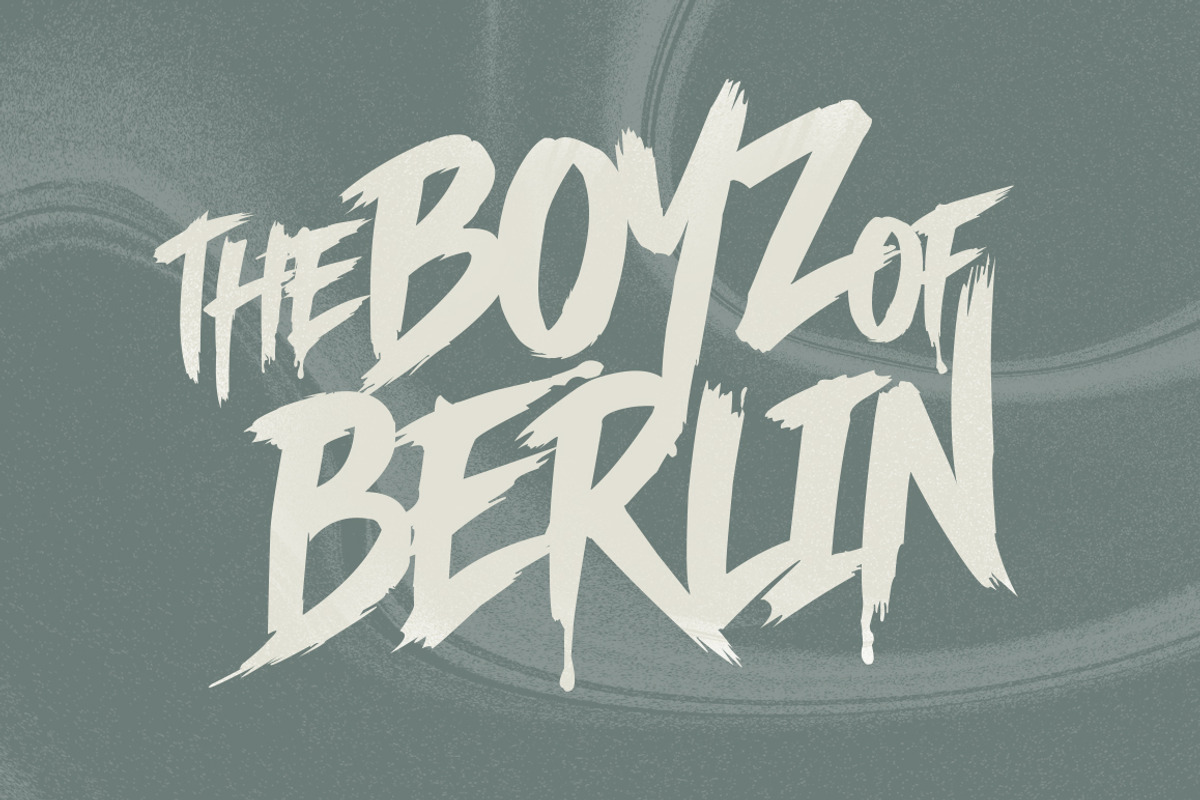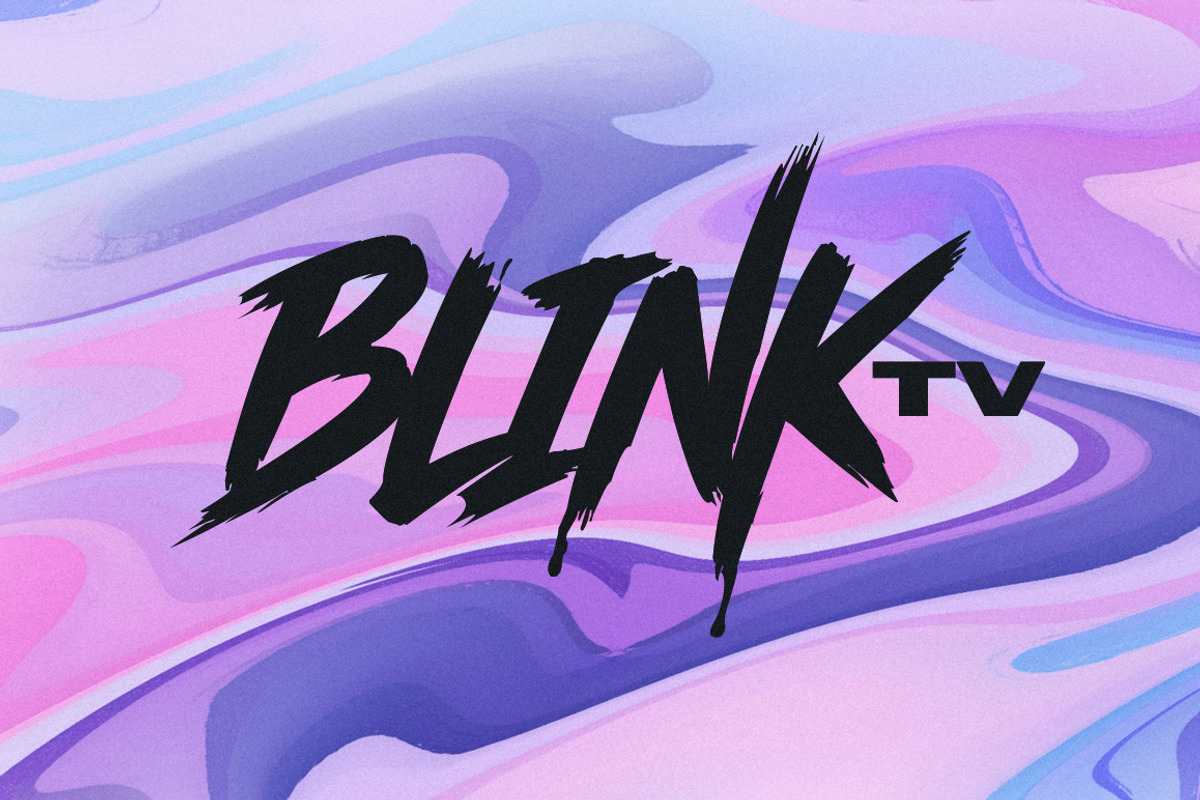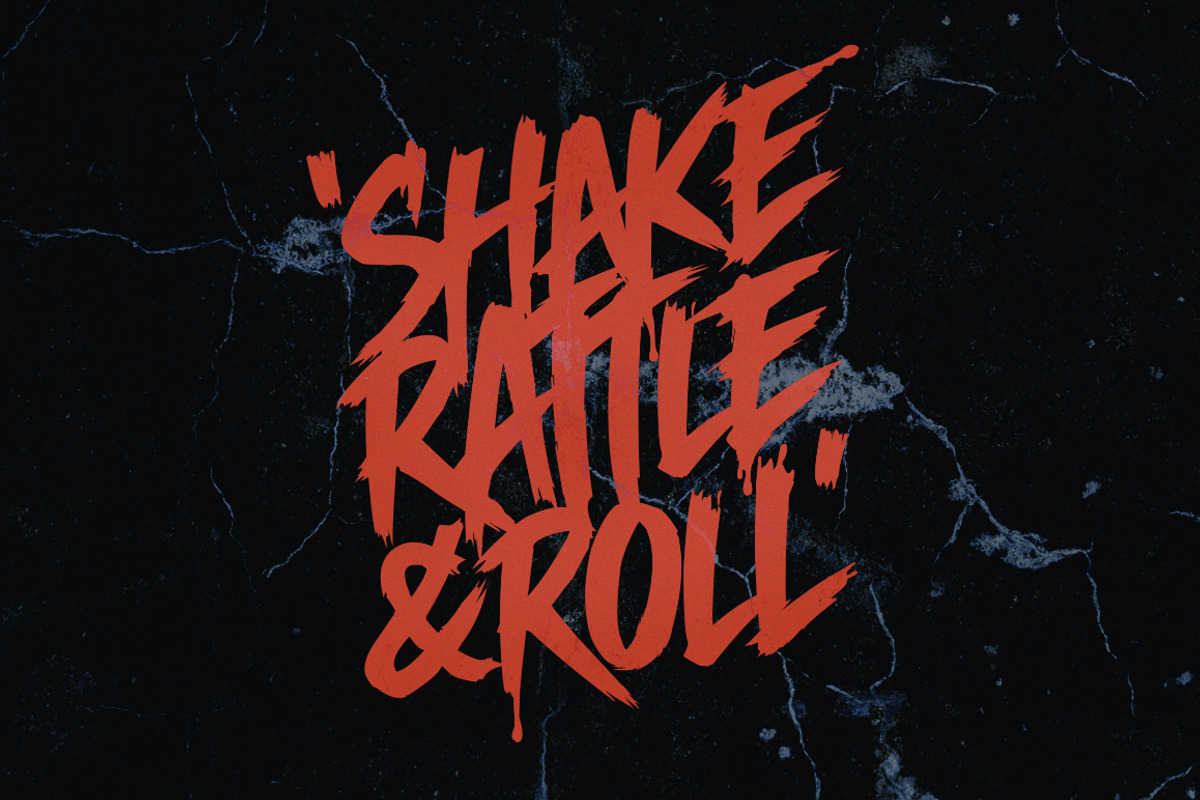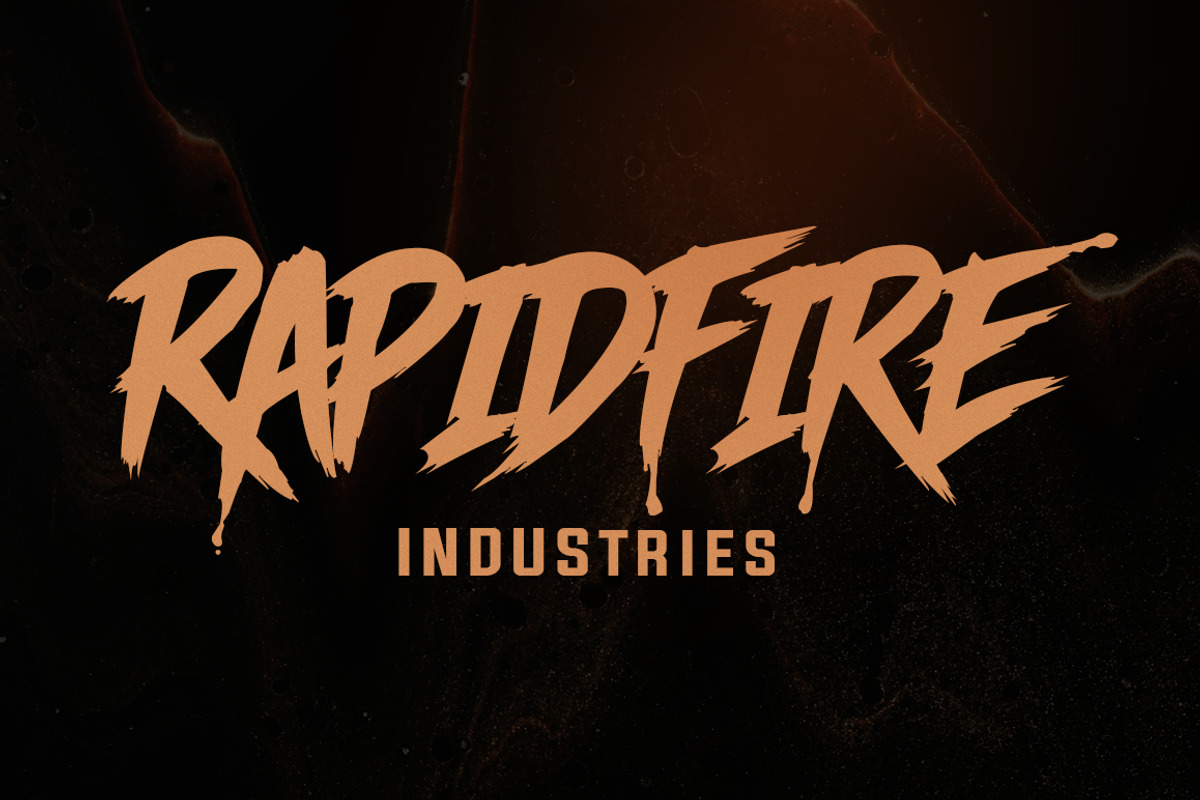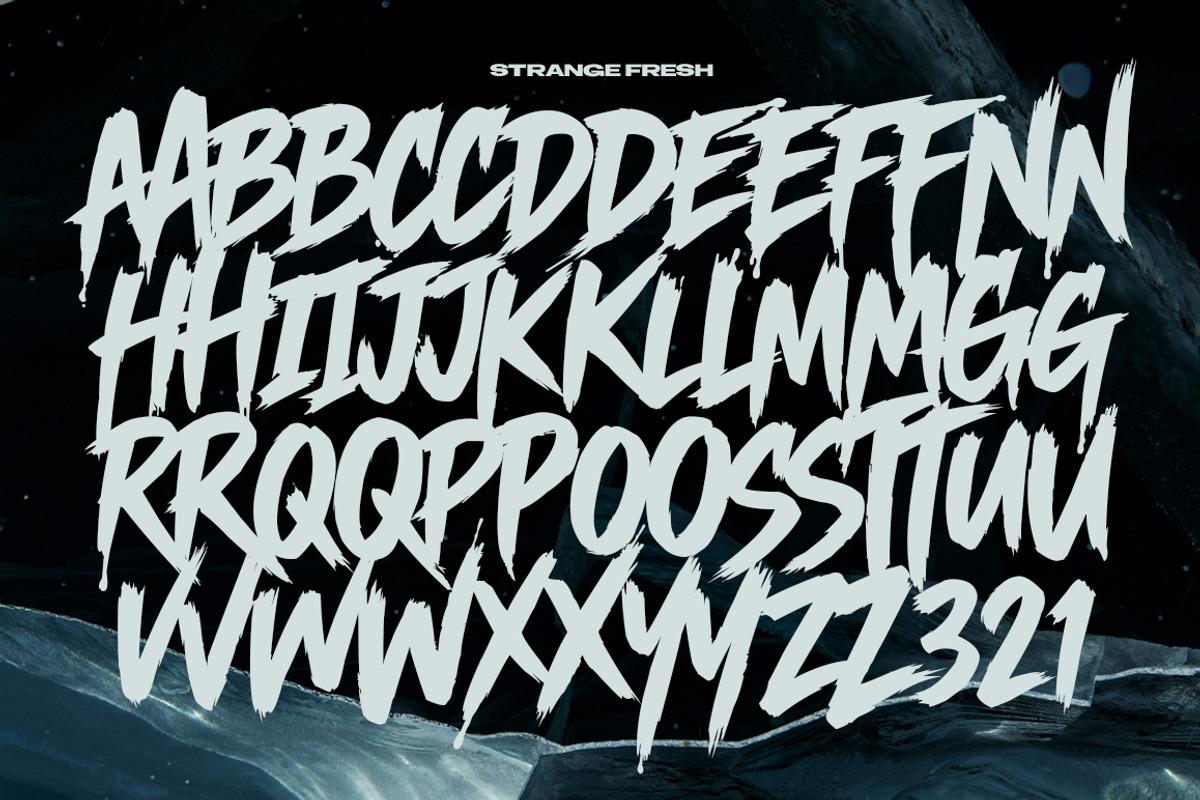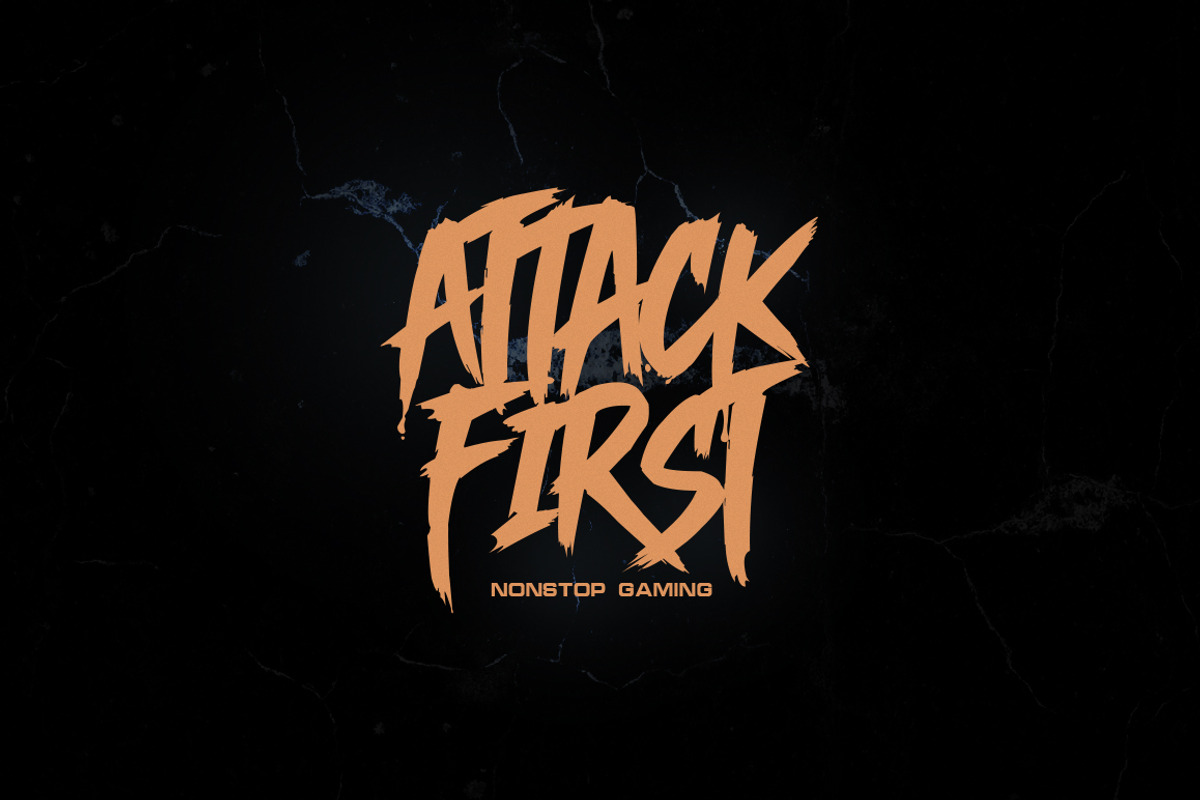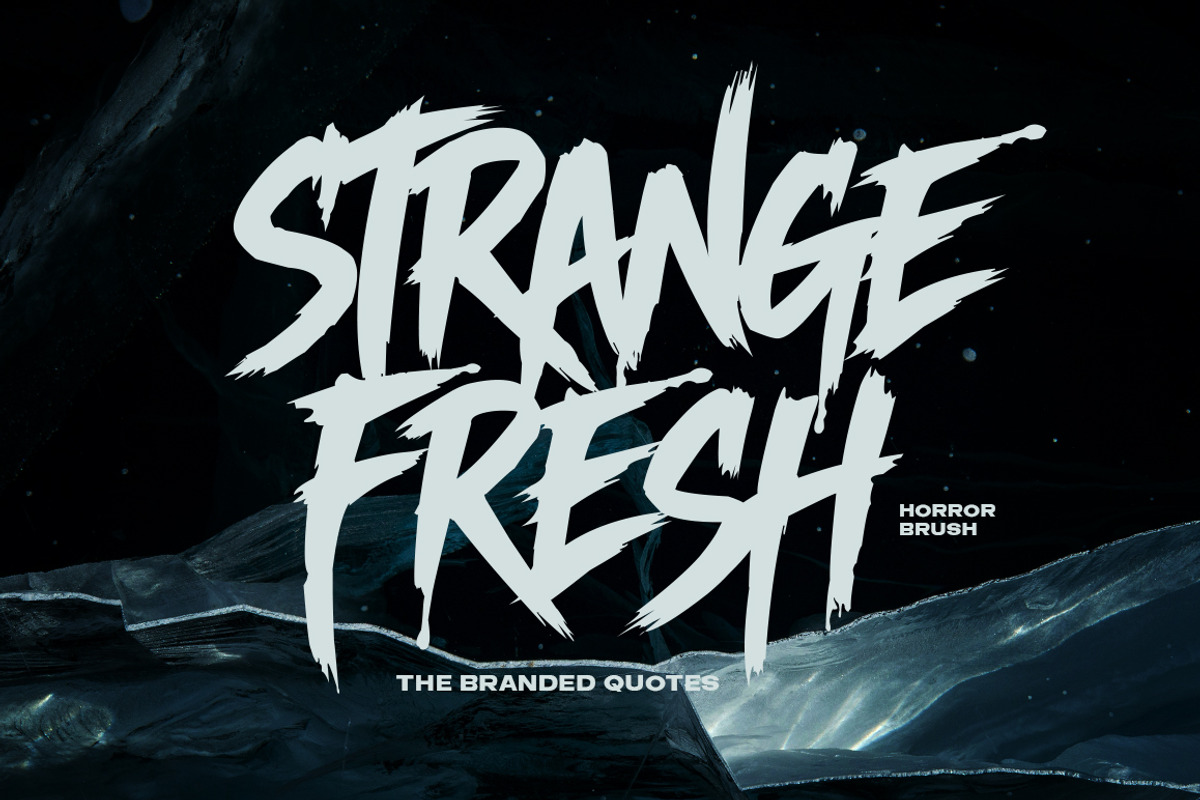
Strange Fresh - Horror Brush
Strange Fresh can dangerously overpower your overall design. Born from the underground design world, this font carries the raw DNA of horror, punk, dark hip-hop and classic films. It is perfectly balanced to stand on its own or elevate any phrase, title, or name to the next level. A combination of dry brush, liquid drips and digital recompositions.
- Strange Fresh Regular
- Strange Fresh Slant